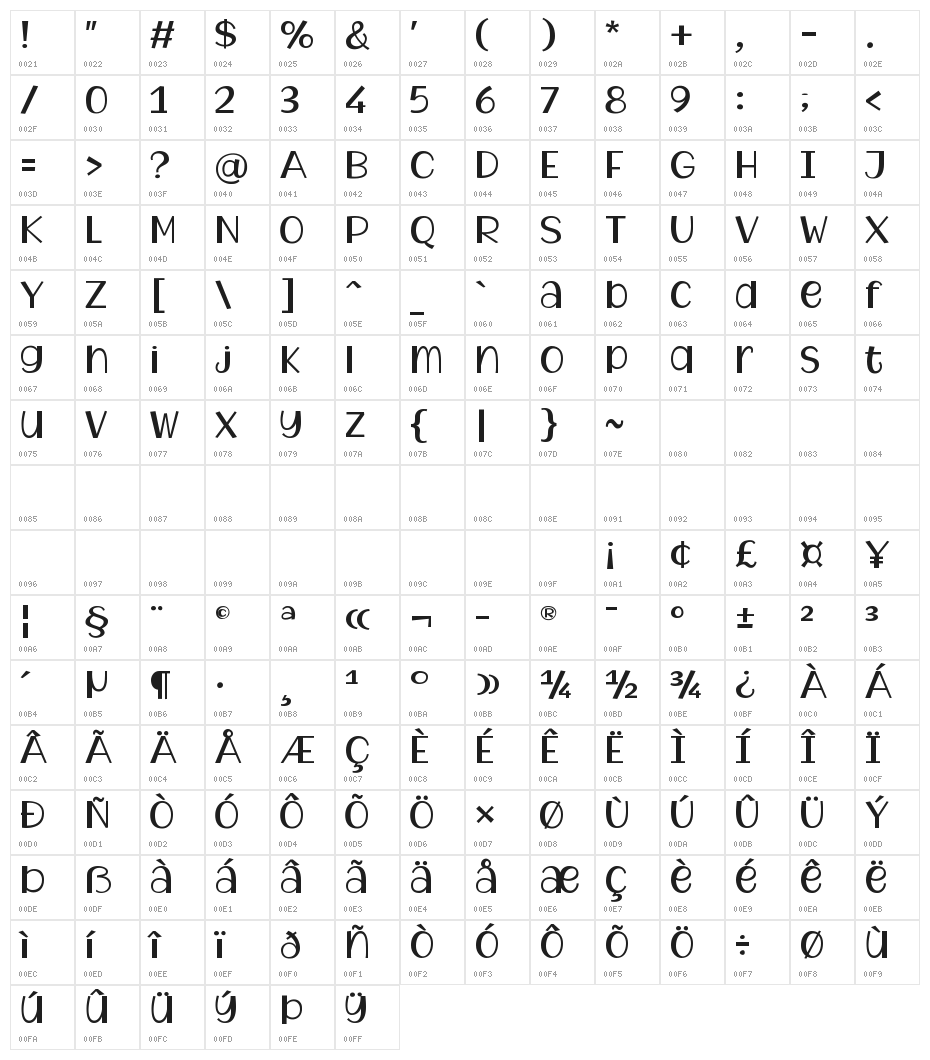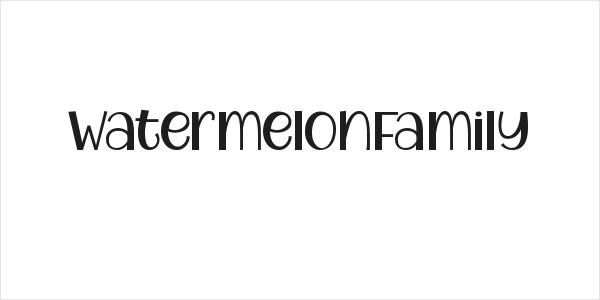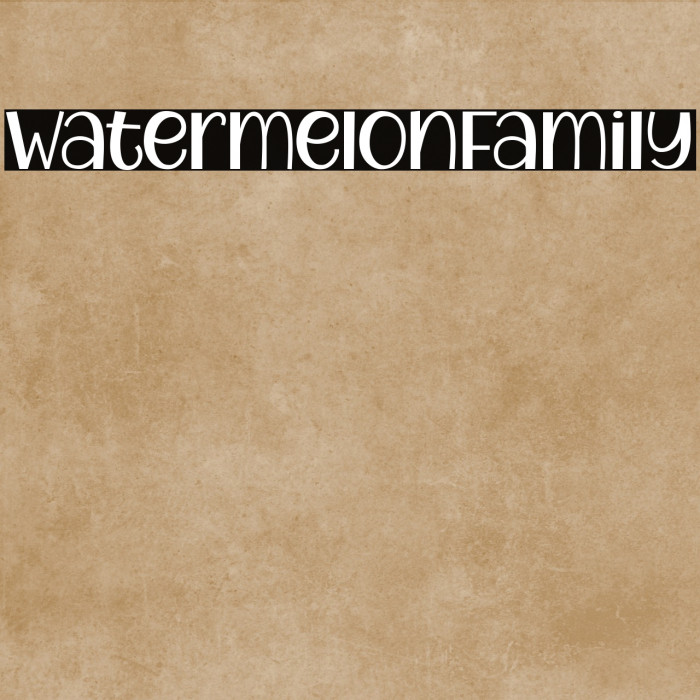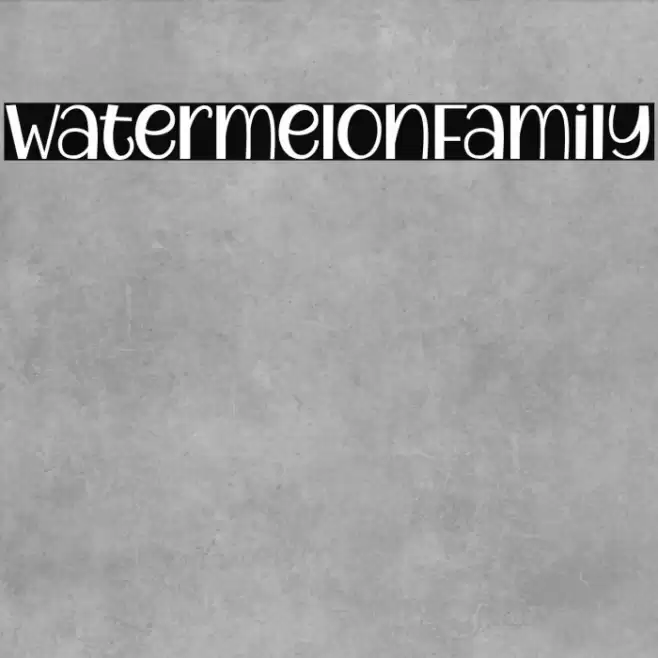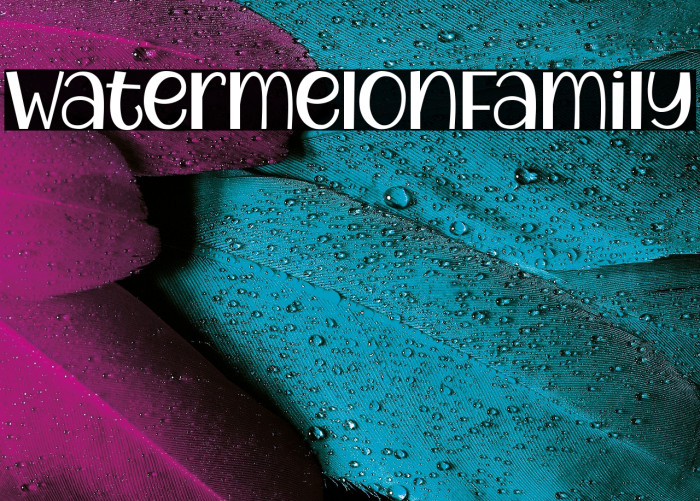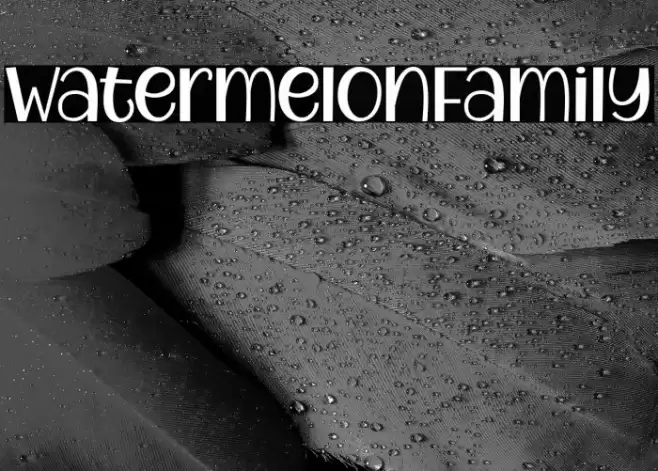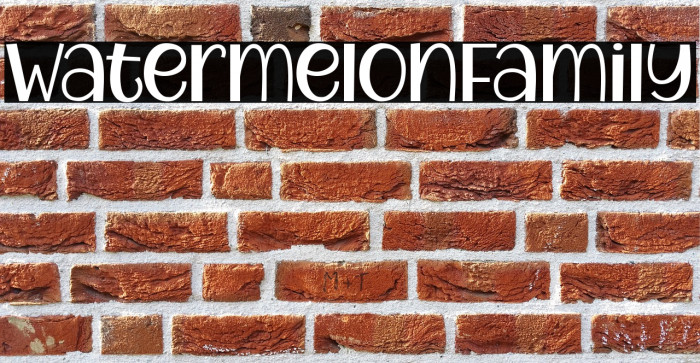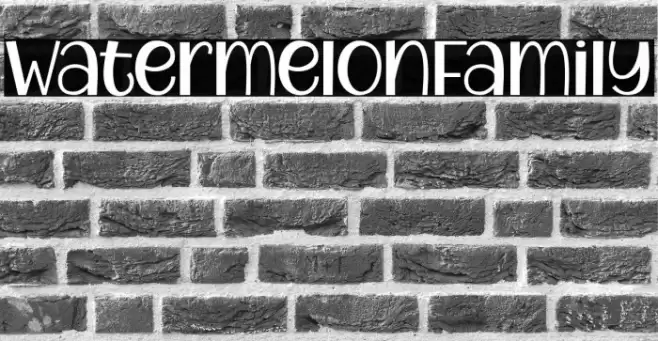
WatermelonFamily Font
WatermelonFamily Description
This font features a playful and modern design with a unique blend of geometric and organic shapes. The uppercase letters are bold and slightly condensed, giving a strong presence, while the lowercase letters have a more rounded and friendly appearance. The numerals are consistent with the overall style, maintaining a balance between readability and aesthetic appeal. Special characters are designed with the same playful touch, making them suitable for creative projects. The font's clean lines and smooth curves make it versatile for various design applications.
| Proposed Projects | Ideal for branding, advertising, children's books, and playful graphic designs. |